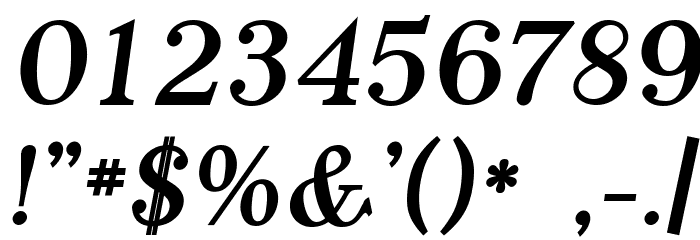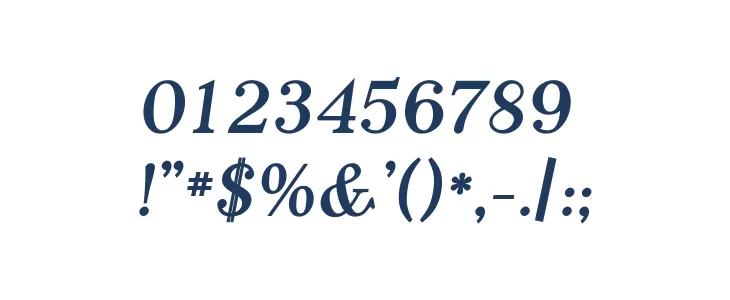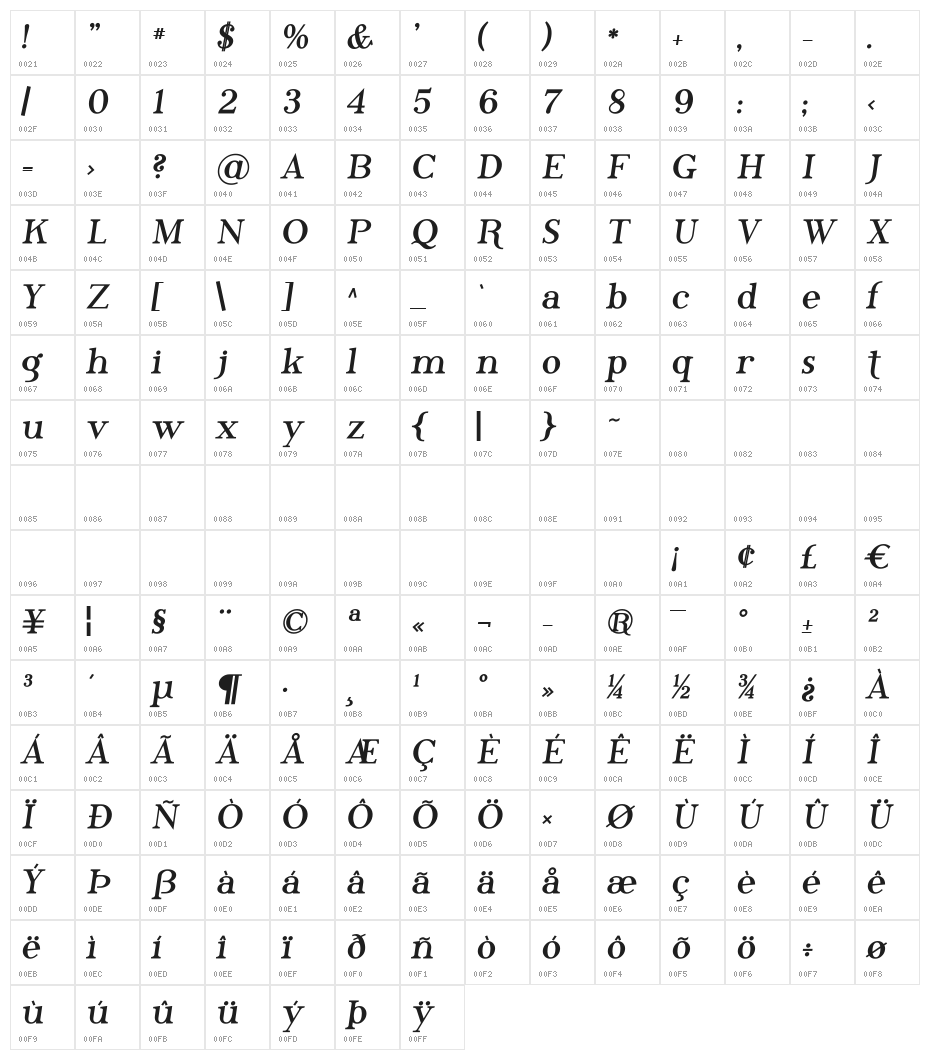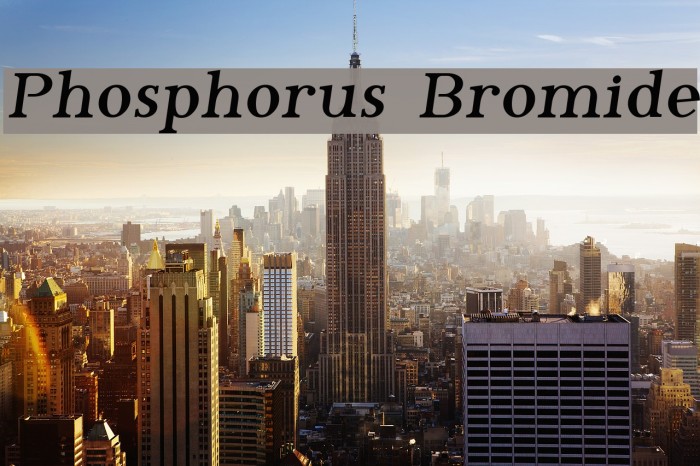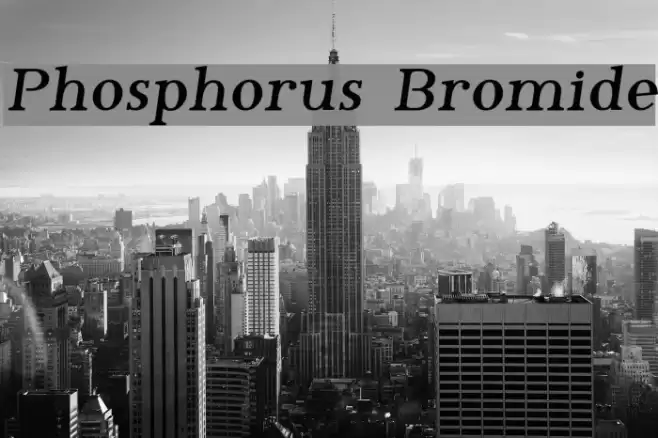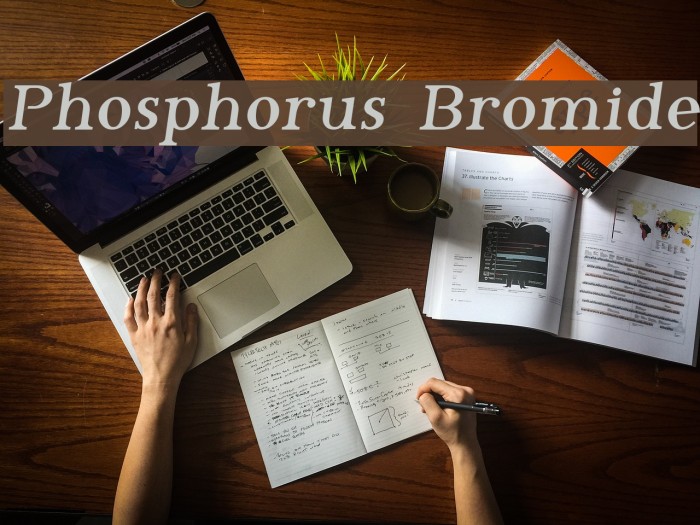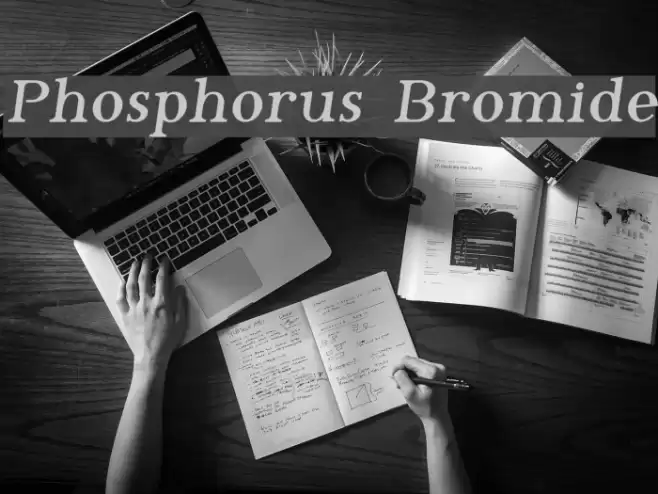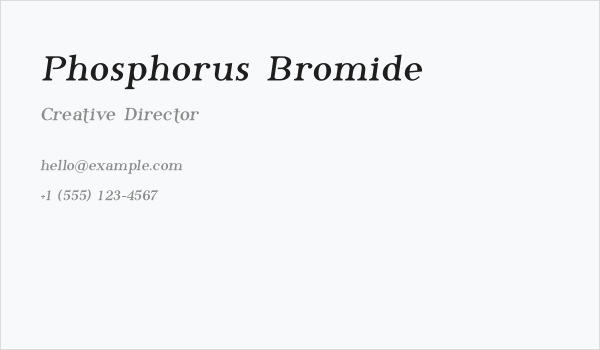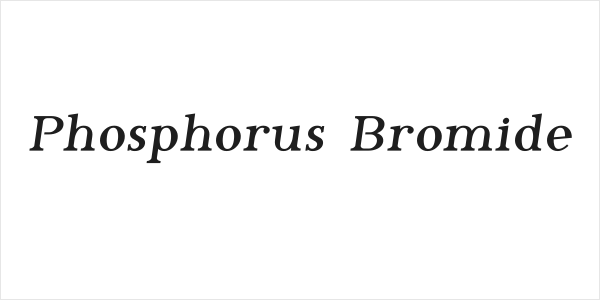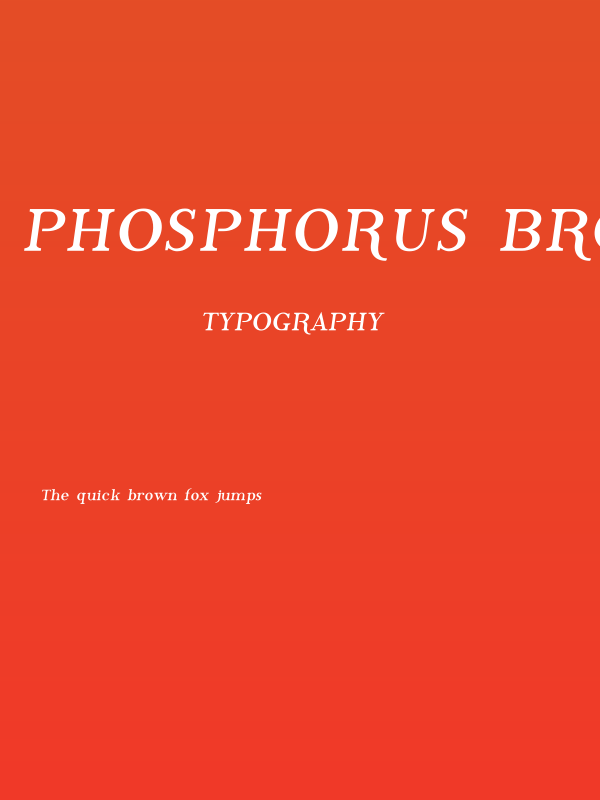
Phosphorus Bromide Font
Phosphorus Bromide Description
This font features a classic serif style with a modern twist, characterized by its elegant and slightly curved serifs. The uppercase letters are bold and commanding, while the lowercase letters maintain a consistent and harmonious flow. The numerals are well-proportioned, offering a balanced look that complements the alphabetic characters. Special characters are designed with the same attention to detail, ensuring a cohesive appearance across all glyphs. The italic nature of the font adds a dynamic and sophisticated touch, making it suitable for a variety of design applications.
| Proposed Projects | Ideal for editorial design, book covers, elegant invitations, and branding projects that require a touch of sophistication. |